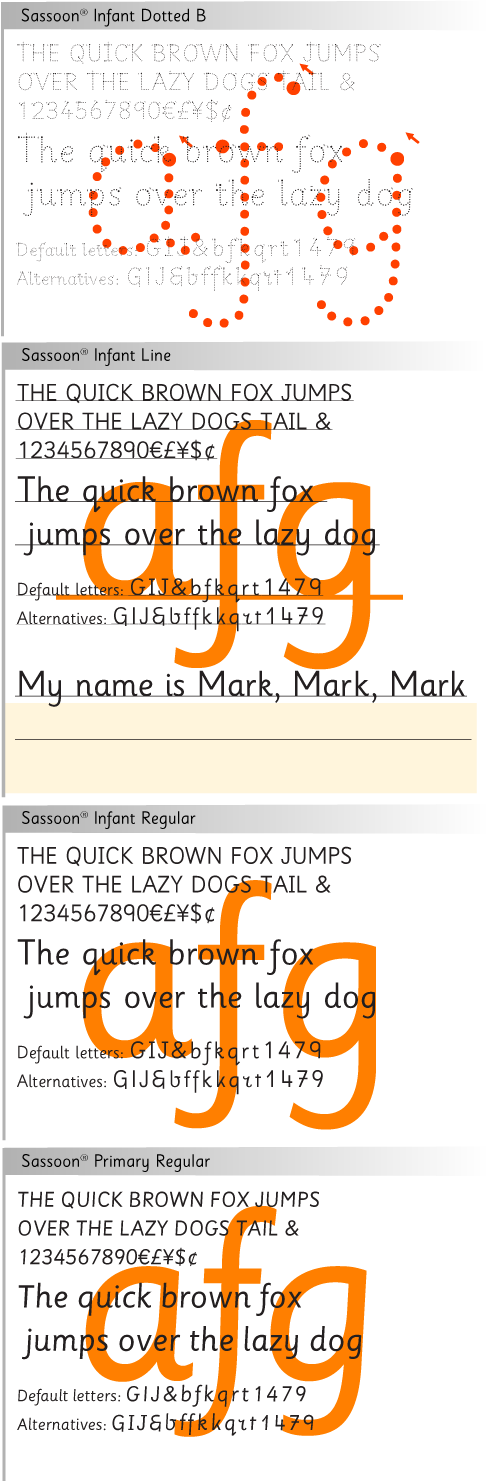
These fonts are the basic requirements for teaching both reading and handwriting;
Sassoon Infant Dotted B for handwriting beginners to 'track' over letters.
Sassoon Infant Line for handwriters to 'copy' what they see on the line.
Sassoon Infant Regular for short passages of text/large displays to aid handwriting.
Sassoon Primary Regular for large passages or whole books of typeset reading material.